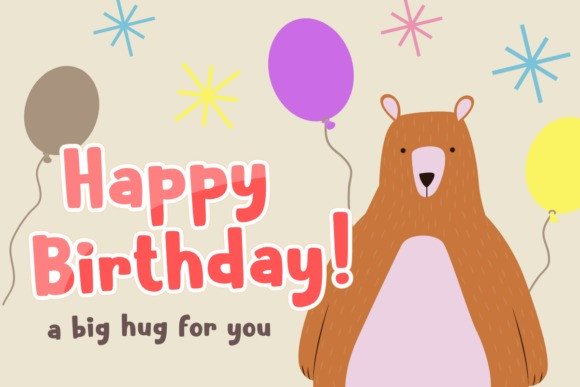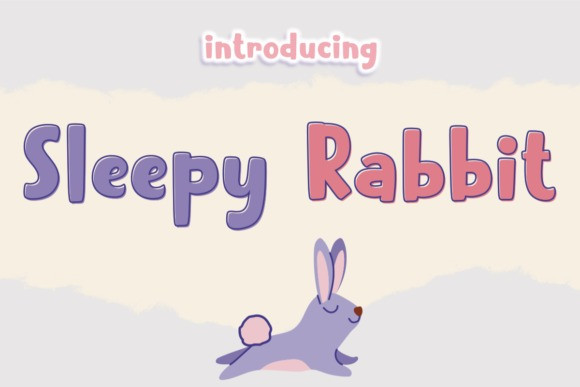
Sleepy Rabbit Font
Sleepy Rabbit Font is a cool, vintage styled and bold display font. It is PUA encoded which means you can access all of the glyphs and swashes with ease!